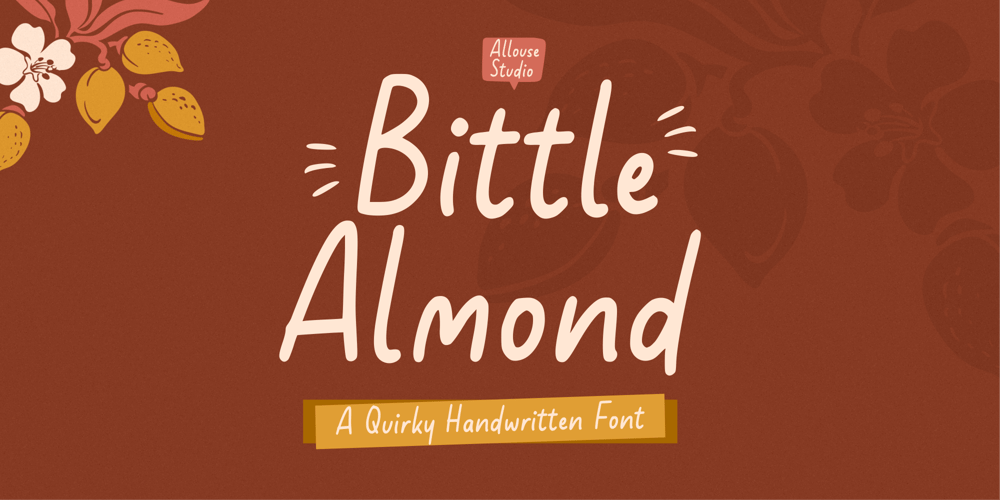
Bittle Almond
Bittle Almond font
Bittle Almond Font Family was designed by Fachrizal Yusuf and published by Allouse Studio. Bittle Almond contains 1 styles and family package options. Proudly Presenting, Bittle Almond A Quirky Handwritten Font.Bittle Almond is perfect for any titles, logo, product packaging, branding project, megazine, social media, wedding, or just used to express words above the background.Bittle Almond also come with Multi-Lingual Support.Enjoy the font, feel free to comment or feedback, send me PM or email. Thank You!